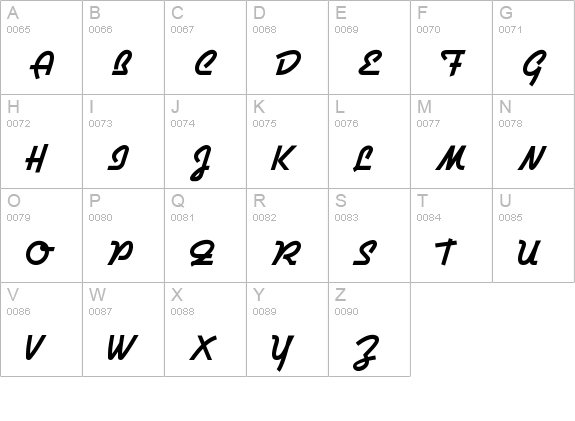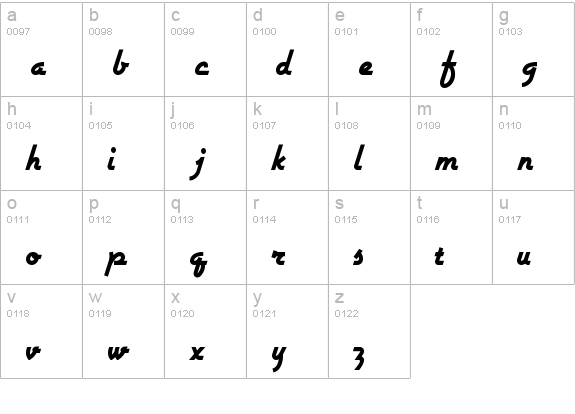
Introducing Airstream, a captivating and versatile font that combines elegance with a touch of modernity. This font exudes a sense of effortless sophistication, making it perfect for a wide range of design projects. With its clean lines and balanced proportions, Airstream commands attention while maintaining a sense of harmony. Its unique letterforms effortlessly flow together, creating an eye-catching visual experience. Whether used for headlines, logos, or body text, Airstream adds a touch of class to any project. But what sets Airstream apart is its availability as a free download at FontsMarket.com. Yes, you read that right. This incredible font is freely available to download, allowing designers and creatives from all walks of life to access its beauty. No need to break the bank to add a touch of elegance to your designs. Imagine the possibilities with Airstream. From luxury brands to fashion magazines, from wedding invitations to corporate presentations, this font will elevate your design to the next level. Its versatility ensures that it can adapt to various styles and themes, making it an invaluable asset for any designer's toolkit. So don't miss out on the opportunity to make your designs stand out. Visit FontsMarket.com today and download Airstream for free. Experience the beauty and versatility of this font and let your creativity soar. With Airstream, your designs will captivate and inspire.